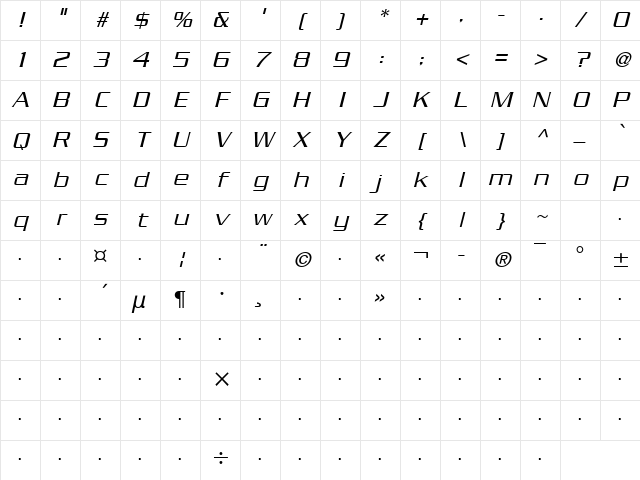
Enterprise Italic
Enterprise Family
Design Context for Enterprise
Enterprise is a composed and adaptable typeface that performs quietly and consistently across a wide range of design contexts. The slanted form adds forward momentum and visual energy.
Pro Tip: Use Enterprise for emphasis, pull quotes, and subheadings where its slanted energy can add rhythm to the layout.